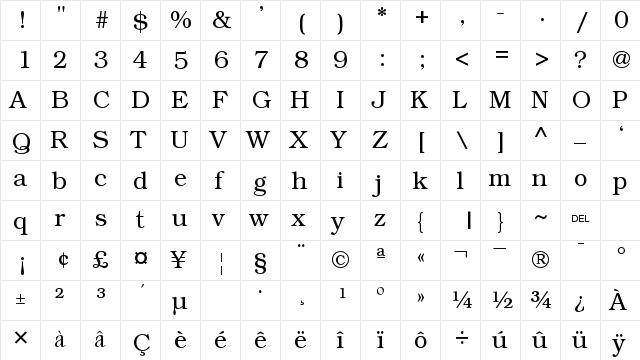
Design Context for KacstArt Typeface
KacstArt is a composed and adaptable typeface that performs quietly and consistently across a wide range of design contexts.
Pro Tip: Use KacstArt in both headline and body roles to test its range before committing to a single application.